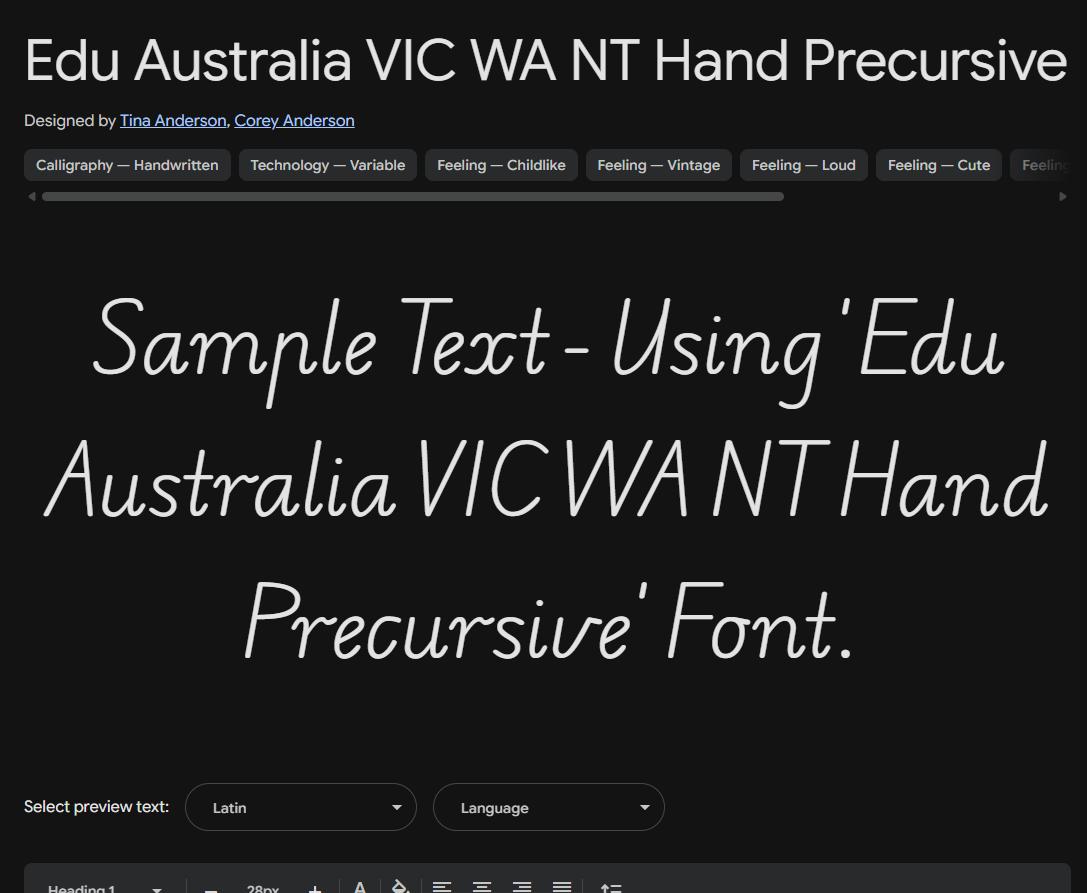
The Edu Australia VIC WA NT Hand Precursive typeface, expertly engineered by Tina Anderson and Corey Anderson, serves as a pivotal bridge between traditional pedagogical standards and modern variable font technology. Operating on a single axis of interpolation, this digital tool allows for precise weight adjustments to accommodate diverse rendering environments, ensuring that the specific precursive letterforms required by the Victorian, Western Australian, and Northern Territory curricula maintain optimal legibility. By integrating advanced OpenType features with a deep understanding of handwriting instruction, the font facilitates a seamless transition for learners through consistent glyph architecture and stroke geometry, transforming a foundational educational requirement into a high-performance typographic asset designed for the rigors of contemporary digital classrooms.
The Edu Australia VIC WA NT Hand Precursive font family represents a sophisticated convergence of foundational pedagogy and modern variable technology, utilizing a multi-axis design framework to transition seamlessly from structured, childlike calligraphy into a rugged, vintage aesthetic. This typeface leverages its organic, handwritten origins to maintain high legibility for early learners while offering a playful and happy visual hierarchy that resonates with a cute, loud, and energetic tone across various digital surfaces. By integrating variable interpolation, the font allows for precise manipulation of stroke weight and character spacing, ensuring that the specific letterforms mandated by Victorian, Western Australian, and Northern Territory educational standards retain their instructional integrity while embracing a versatile, loud presence in contemporary typographic environments.
While the Edu Australia VIC WA NT Hand Precursive variable font serves as a vital pedagogical tool for primary literacy in the Victorian, Western Australian, and Northern Territory school systems, its specific design for muscle memory development makes it fundamentally unsuitable for high-stakes corporate legalities, medical labeling, or structural engineering documentation. The typeface's weight axis and precursive entry strokes, meticulously engineered by Tina and Corey Anderson to adhere to state-specific handwriting standards, lack the rigid baseline stability and standardized kerning pairs required for high-density optical legibility in professional environments. Utilizing a font defined by its instructional "unjoined" glyph architecture in a luxury branding or financial reporting context would cause a significant loss of institutional authority, as the informal, hand-drawn aesthetic fails to provide the geometric precision and stroke-contrast ratios necessary for communicating permanency and technical accuracy in a non-educational landscape.
This typeface collection is specifically engineered to meet the stringent curriculum requirements of New South Wales, Victoria, Queensland, and Western Australia. Regional glyph variations ensure 100% alignment with the Australian Curriculum, Assessment and Reporting Authority (ACARA) standards across diverse jurisdictional syllabi.
The letterforms are designed with a focus on legibility and pedagogical structure, making them ideal for foundational literacy development. High x-heights and simplified terminal strokes facilitate rapid muscle memory acquisition during the crucial primary development stage.
The precursive variant utilizes unjoined characters to help students master basic letter formation before progressing to cursive joins. By omitting complex ligatures and entry flourishes, the font minimizes cognitive load for learners focusing on discrete phoneme-grapheme mapping.
A dedicated dotted weight is included to provide visual scaffolding for students practicing motor control through tracing activities. The internal node density of the traced vector outlines is specifically balanced to maintain clear directional paths even at low print resolutions.
The Victorian Modern Cursive styles adhere strictly to the specific slant and stroke sequences mandated by the Victorian Department of Education. Accurate reproduction of the 'f', 'k', and 'z' letterforms ensures that the font passes all state-level audits for pedagogical accuracy in handwriting instruction.
Comprehensive character sets are included to allow for the creation of mathematics worksheets and complex grammatical exercises. Unicode support extends to specialized arithmetic operators and currency symbols, maintaining stylistic consistency across varied educational content types.
The vector-based design ensures that every character maintains perfect edge clarity regardless of the physical scale of the printed material. Robust Bezier curves prevent pixelation or distortion, ensuring that visual aids remain pedagogically sound when viewed from a distance in a classroom environment.
The family includes a variety of weights to provide typographic hierarchy and emphasis within instructional documents. Optimized stroke widths in the bold weight maintain the font's distinctive anatomical proportions without sacrificing the specific cursive structural integrity.
Specific variations for the Western Australian and Northern Territory curriculum are fully integrated into the font's character map. Regional-specific ligatures and lead-in strokes are toggled via OpenType stylistic sets to ensure compliance with the WA School Curriculum and Standards Authority (SCSA).